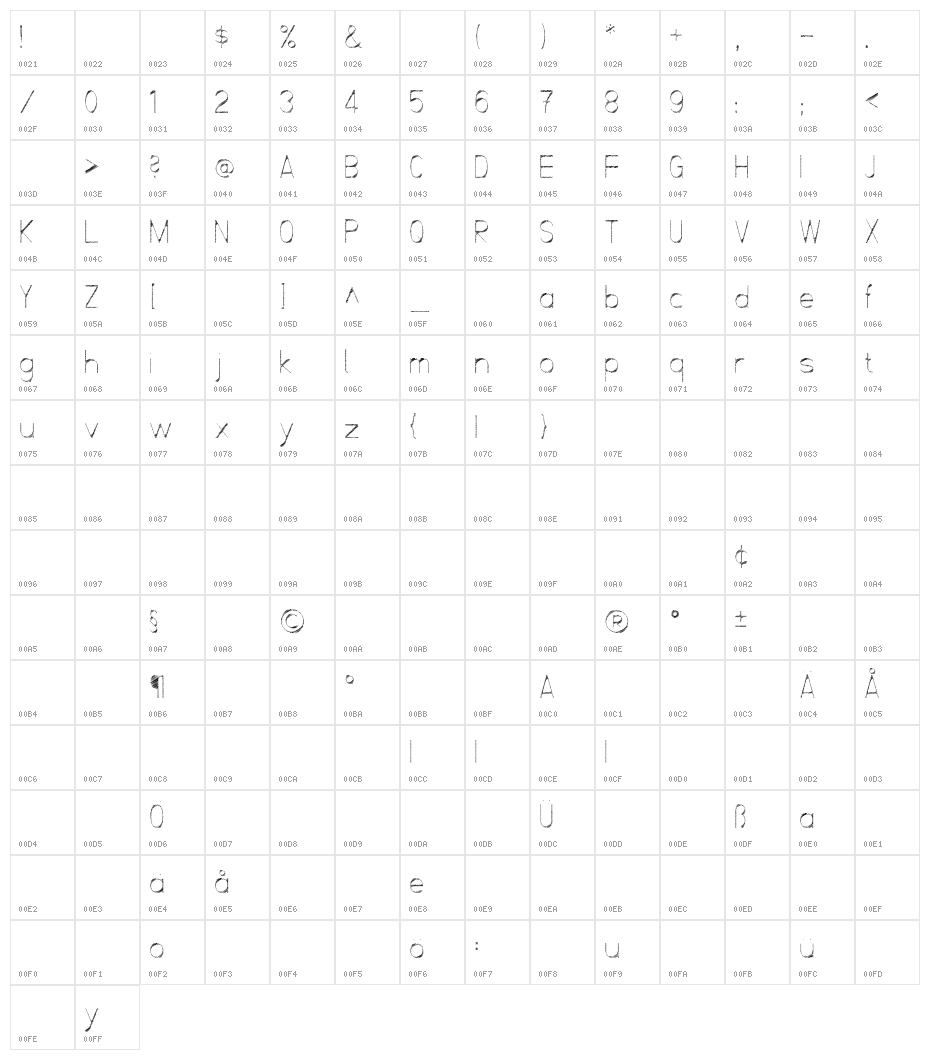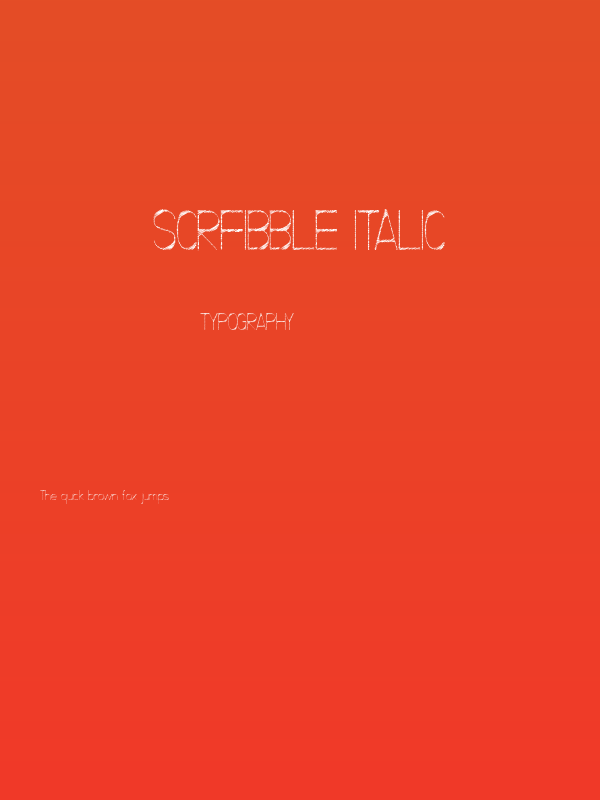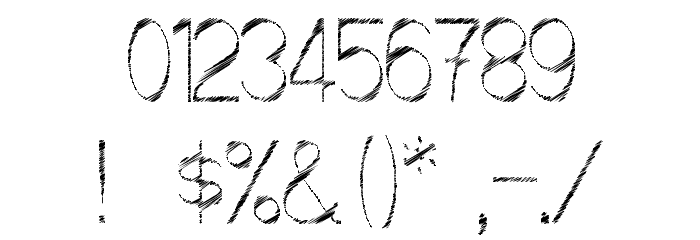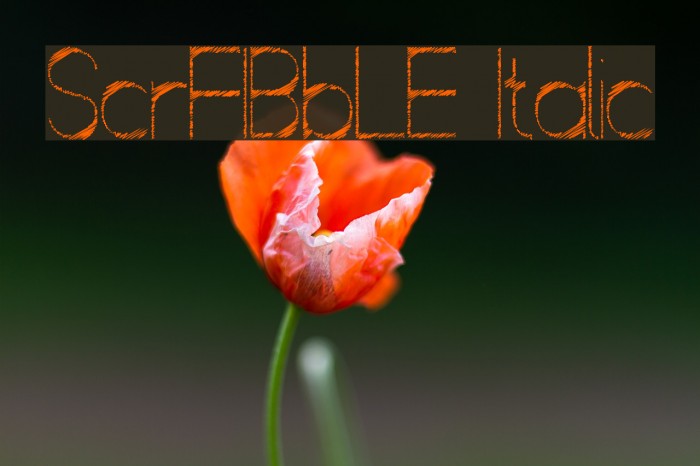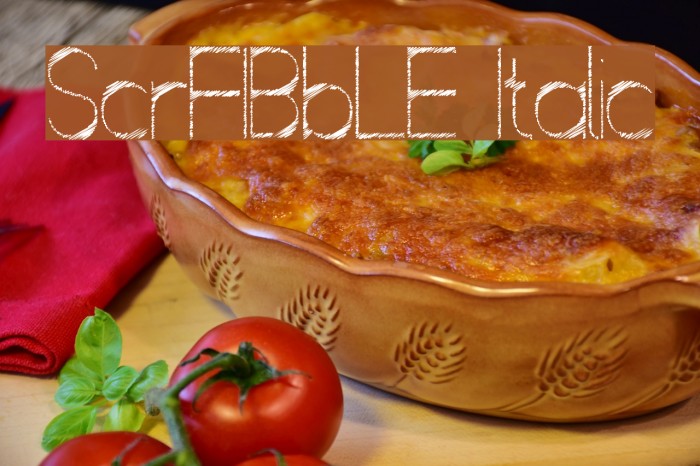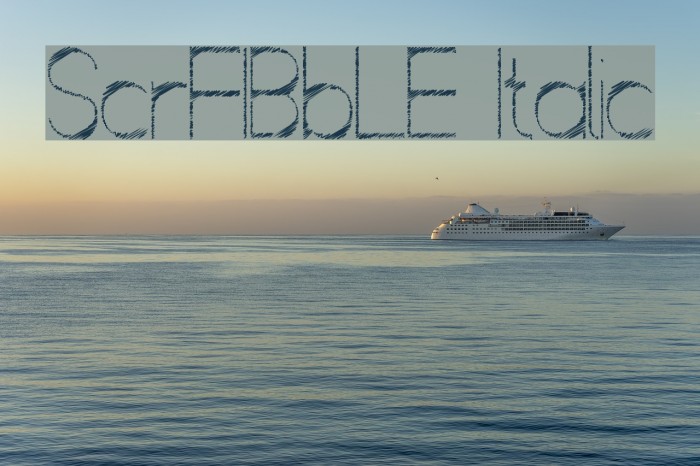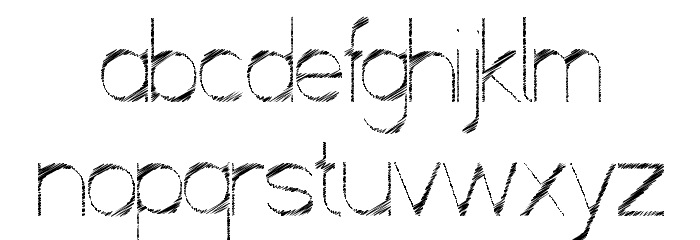
ScrFIBbLE Italic Font
ScrFIBbLE Italic Description
This font features a unique, hand-drawn aesthetic with a sketch-like appearance. The characters are slightly slanted, giving an italicized effect, and the strokes are uneven, mimicking the texture of pencil or charcoal. The uppercase and lowercase letters maintain a consistent style, with a playful yet sophisticated look. Numbers and special characters are designed with the same artistic flair, making them stand out. This font is ideal for projects that require a creative and informal touch, while still maintaining readability.
| Use Case | Headlines, Logos, Artistic projects |
| Proposed Projects | Ideal for creative projects such as art posters, invitations, greeting cards, and branding materials that require a personal touch. |